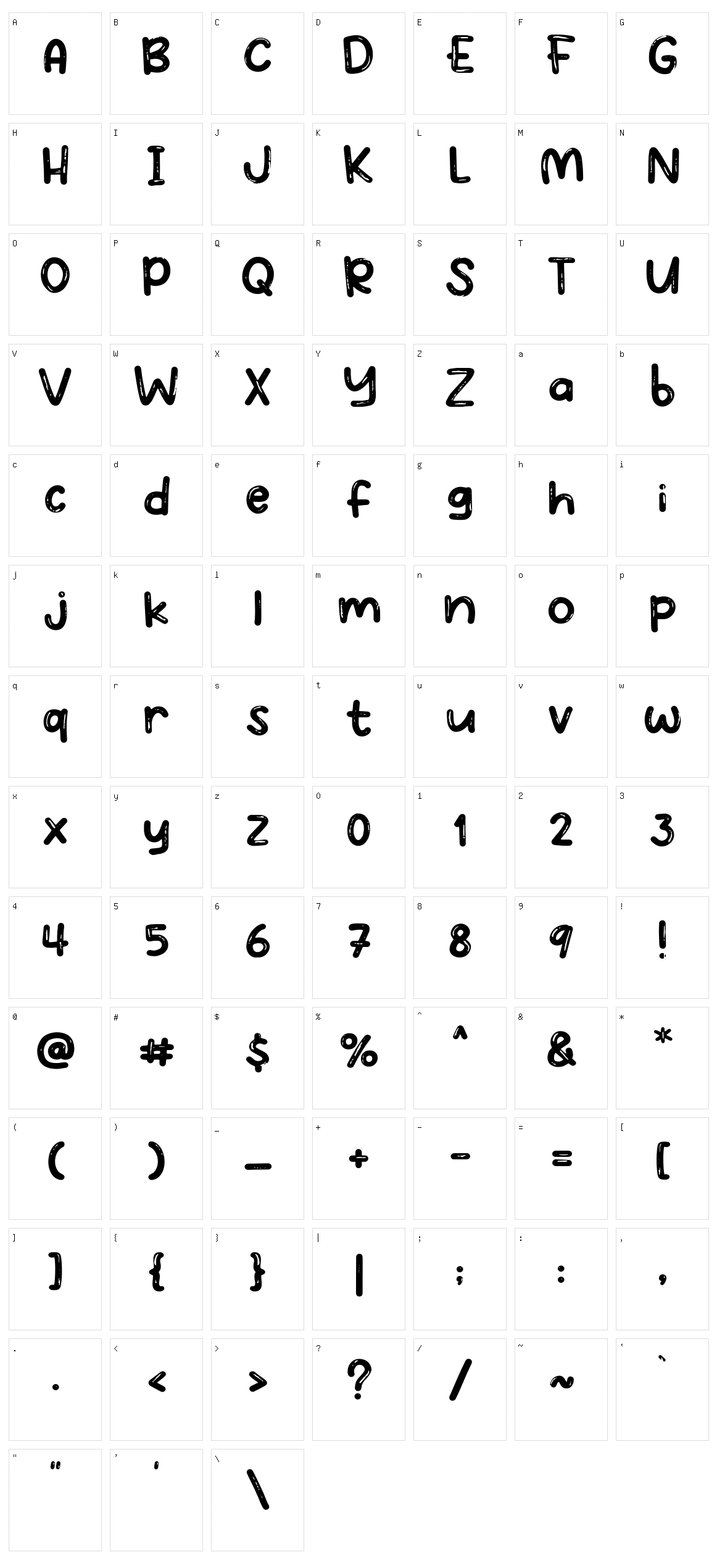
The free font Apasih is carefully designed by Khurasan, showcasing a thoughtful balance of creativity and usability and falls under the Cartoon font style. When you download the ZIP file, it contains only 504.09 KB of font files, making it lightweight and quick to download. Please review the license details below to understand permitted usage and distribution rights. If license information is not available, we recommend using this font for personal projects only or contacting the author directly for commercial usage permissions.